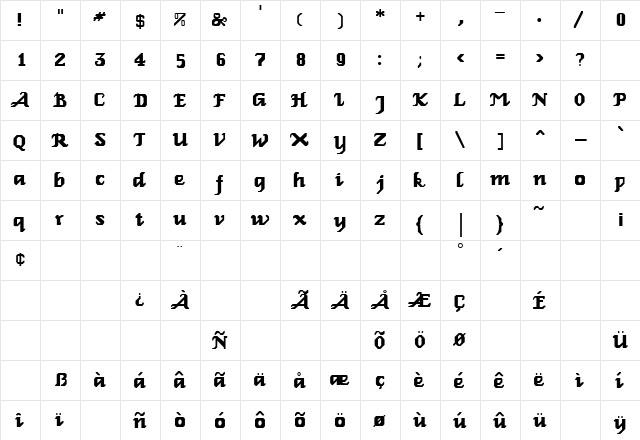
RoboChancerySSK Regular
Design Context for RoboChancerySSK Typeface
RoboChancerySSK is a composed and adaptable typeface that performs quietly and consistently across a wide range of design contexts.